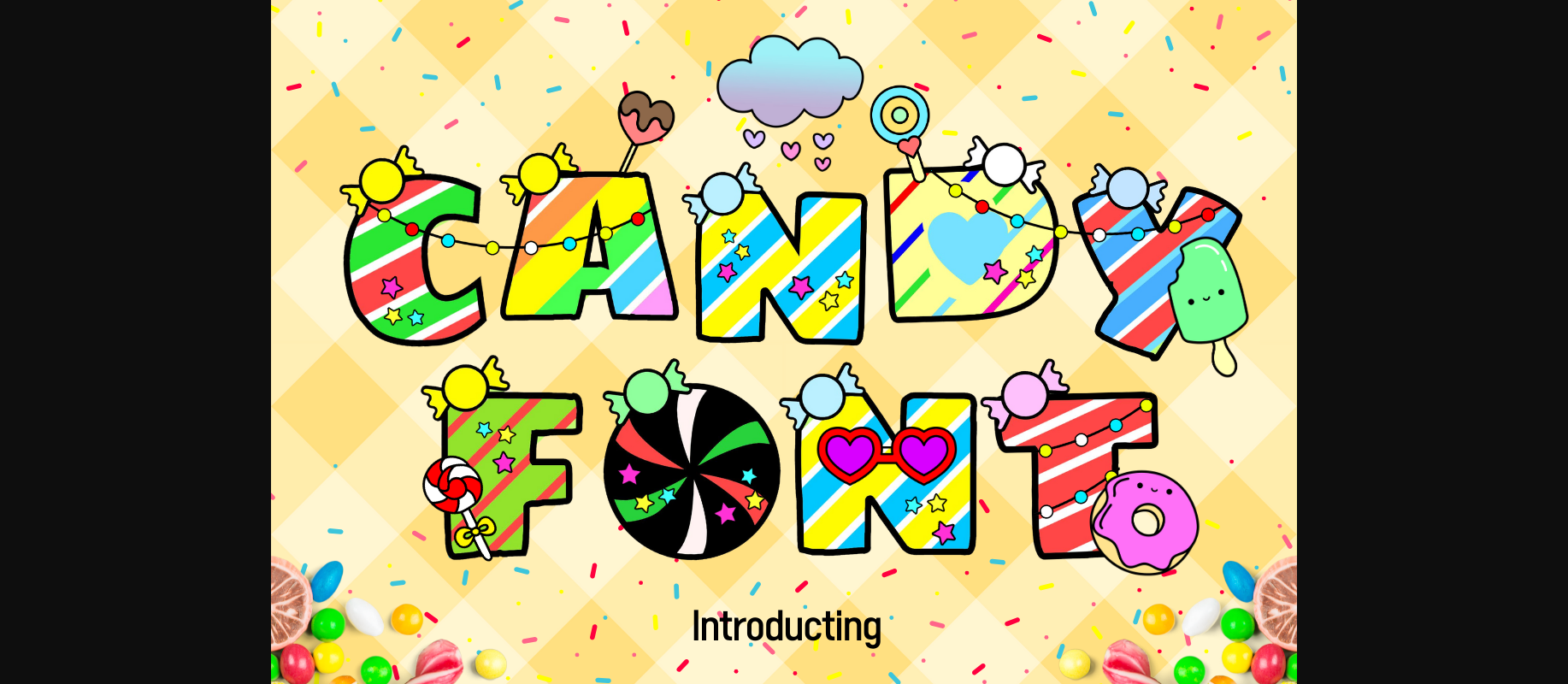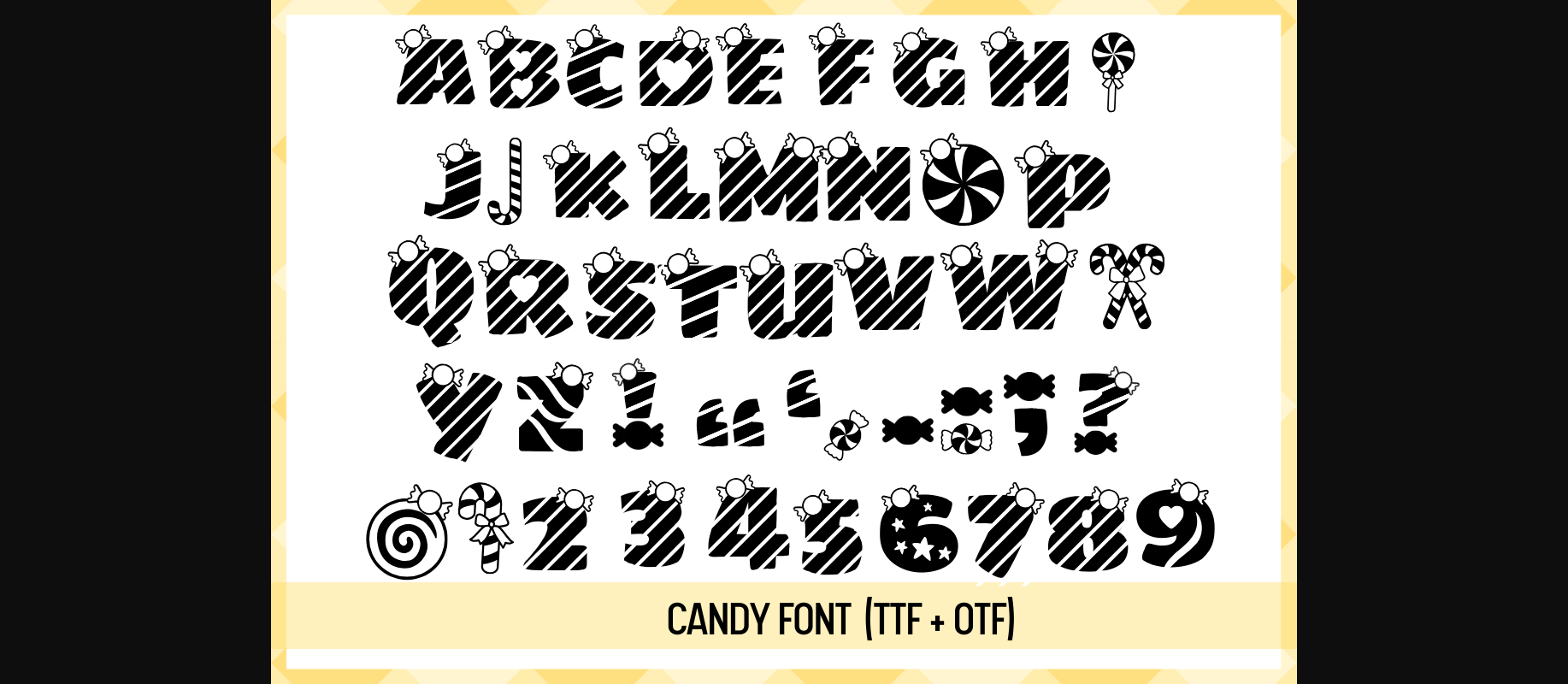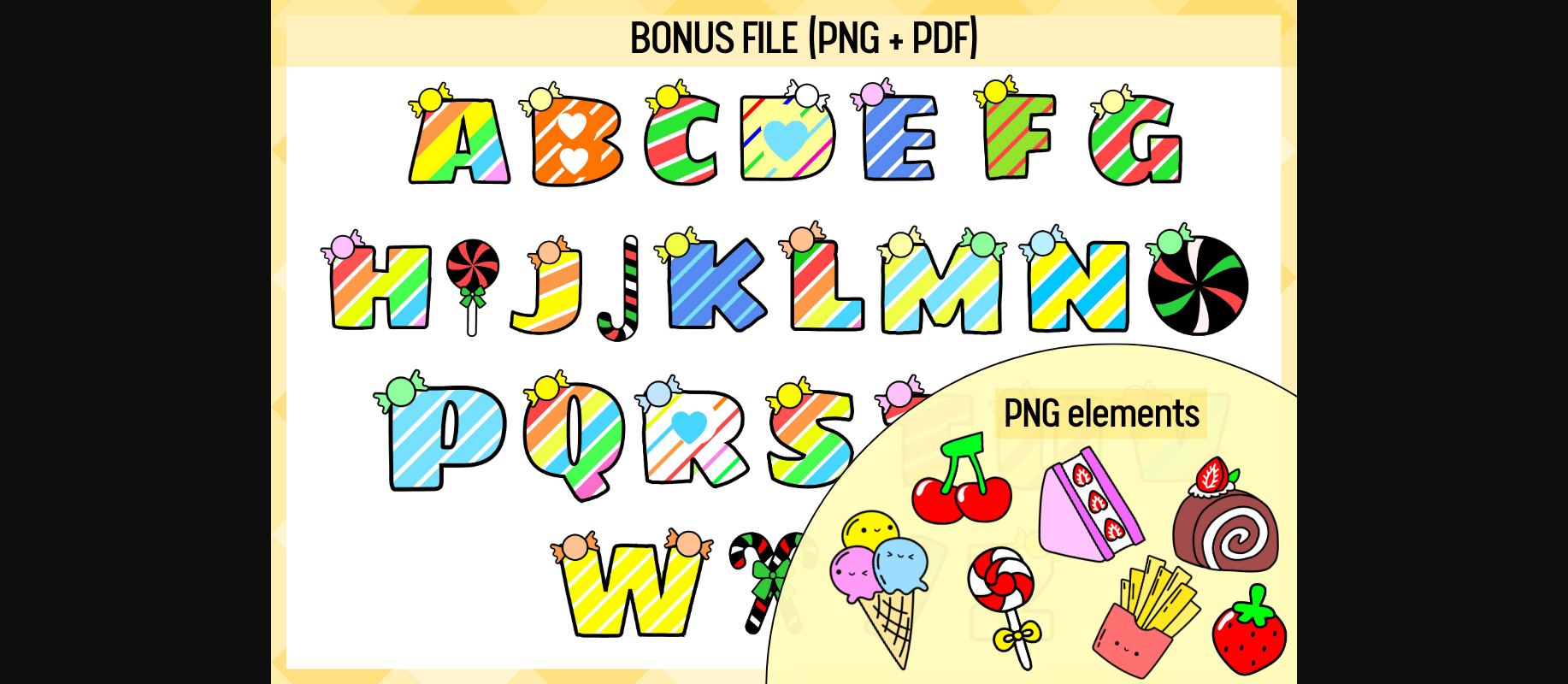
About Candy Font
Introducing Candy, a delightful decorative font filled with candies, lollipops, and bonus sweet elements. Perfect for adding a playful touch to your designs, this font is bursting with sweetness and charm. Whether you’re creating invitations, posters, or any other project that needs a sugary twist, Candy is sure to satisfy your craving for fun typography.